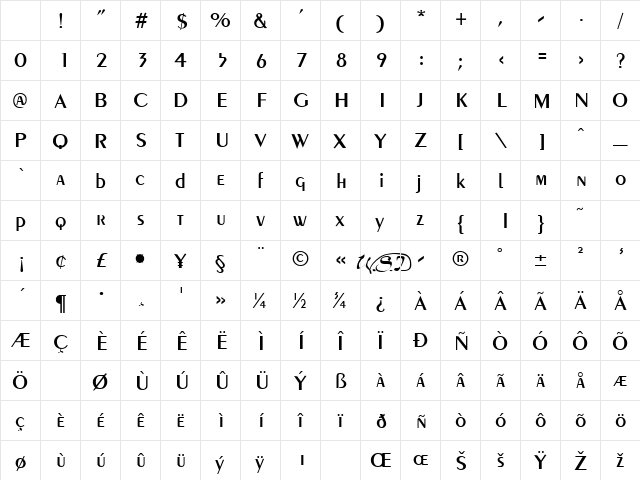
Penyae Regular
Design Context for Penyae
Penyae is a composed and adaptable typeface that performs quietly and consistently across a wide range of design contexts.
Pro Tip: Use Penyae in both headline and body roles to test its range before committing to a single application.